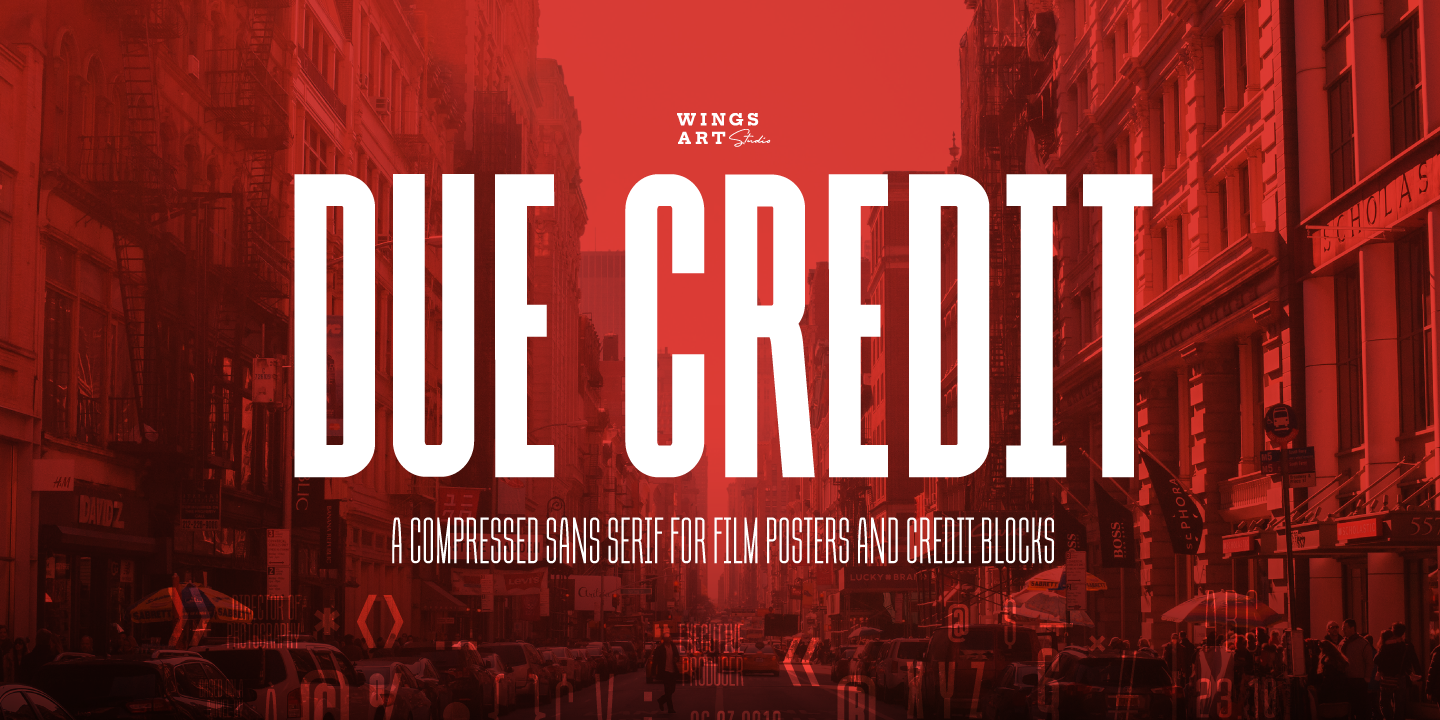
The Due Credit Font Free Download is an incredibly sleek and refined sans-serif typeface, making it an excellent choice for designs that demand professionalism, understated elegance, and clear readability. This versatile font is perfectly suited for corporate branding, financial reports, legal documents, professional presentations, minimalist website design, and high-end product packaging. Imagine it providing the crisp, authoritative typography for a business consulting firm, ensuring transparent readability in complex data tables, or lending a sophisticated yet approachable tone to a luxury service's marketing materials. Its clean lines and balanced forms ensure your message is delivered with precision and an undeniable sense of trust and credibility.
What makes Due Credit Font truly exciting is its ability to blend unobtrusive design with a distinct, confident character. It's not just another generic sans-serif; it possesses a subtle intelligence and a meticulously crafted structure that allows it to integrate seamlessly into diverse professional contexts while maintaining a polished and contemporary presence. Its robust construction ensures it performs beautifully in both large display sizes and small body text, making it an incredibly reliable choice for any project. Designers will appreciate its understated sophistication and how it provides a solid yet stylish foundation for any visual communication, allowing the content to truly shine with an air of integrity.
The Due Credit Font family typically offers an expansive range of weights and styles, making it exceptionally flexible for building sophisticated typographical hierarchies and nuanced visual expressions. You can often find a comprehensive spectrum of variations, including Thin, Light, Regular, Medium, SemiBold, Bold, and Black, providing extensive control over visual emphasis and typographic texture. Most comprehensive versions also include corresponding Italic styles, further enhancing its utility for varied design needs, from subtle emphasis to dynamic headlines. These extensive options ensure that the Due Credit Font Free Download is an invaluable asset for designers seeking a dependable, high-quality, and aesthetically pleasing typeface for virtually any design challenge.